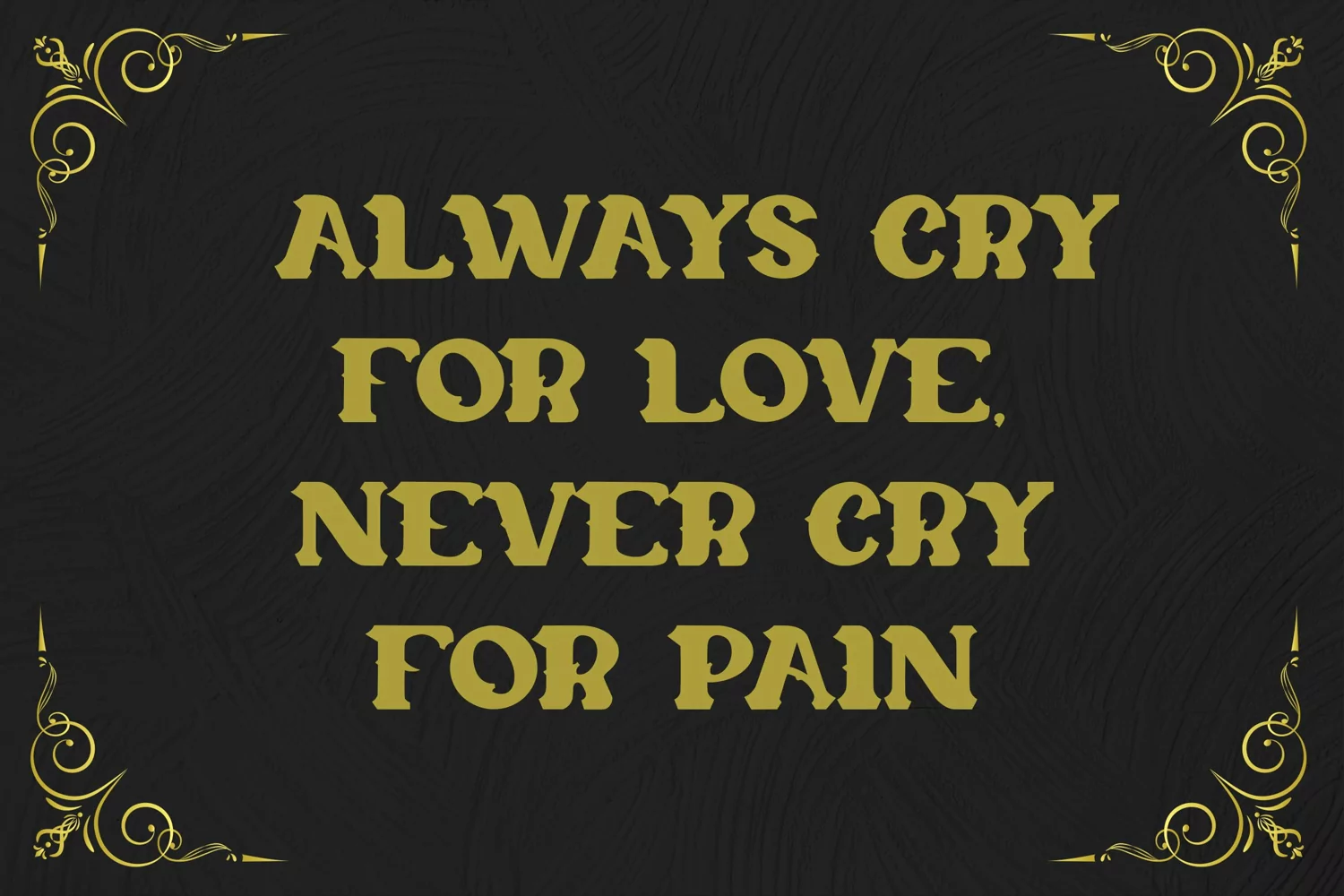
Thrones - Modern Gothic Font that contain lowercase, uppercase, symbol, and also support multi language. There’s a lot ligatures in this font. This Font also comes with ligatures, alternates and many more. this font suitable for fashion, branding, catalog and other design what you want.
Thrones